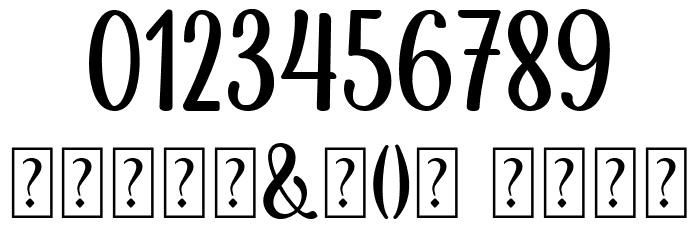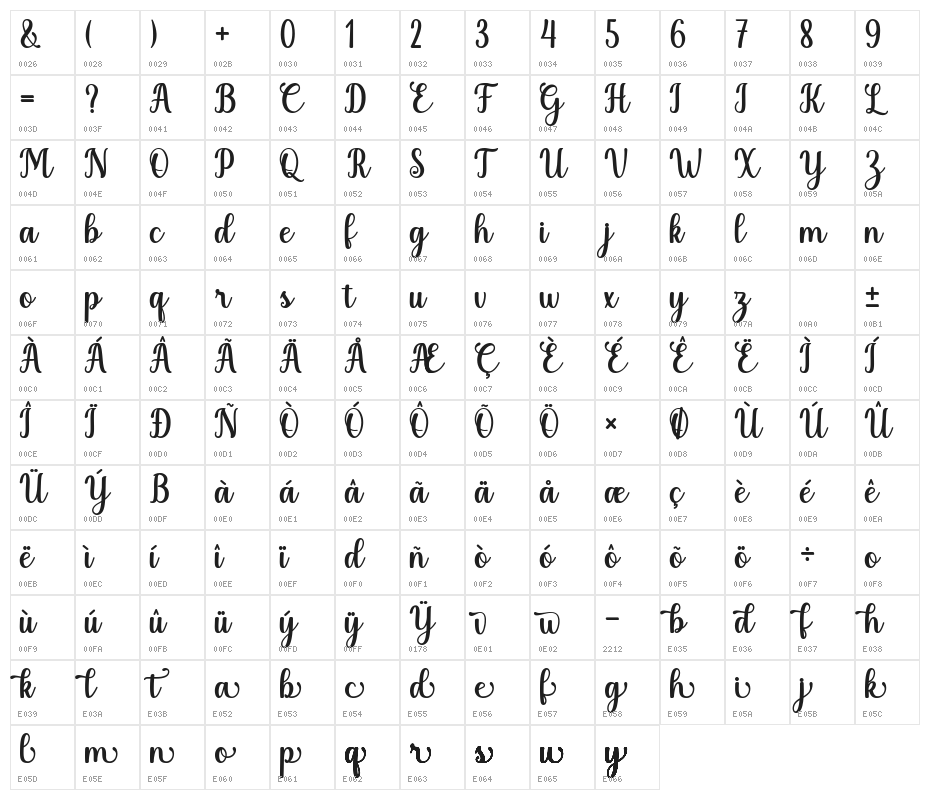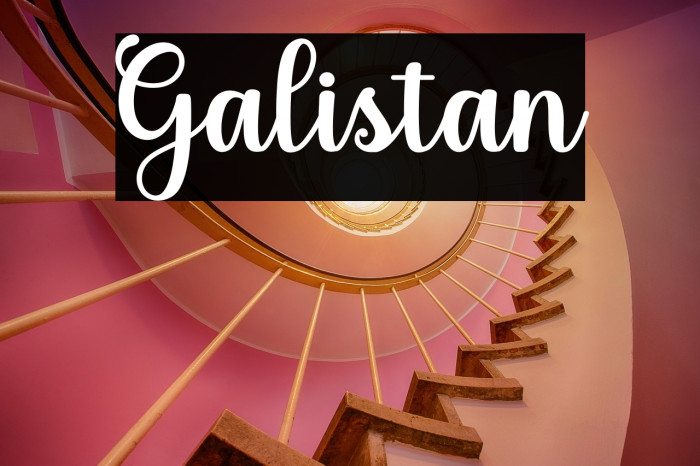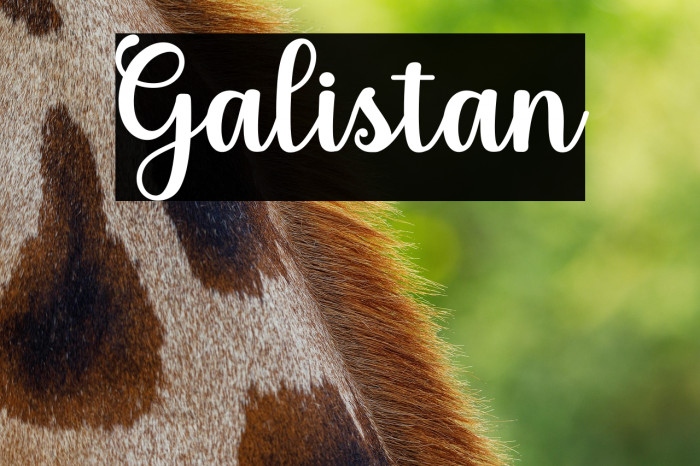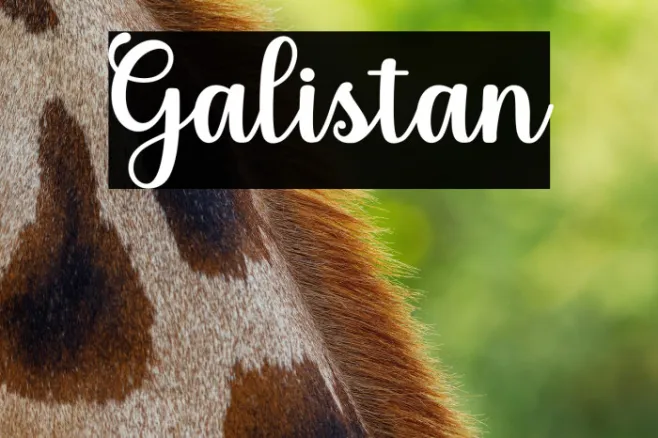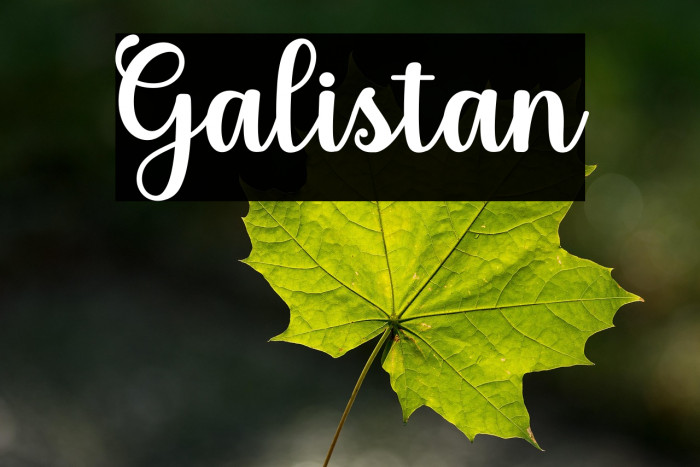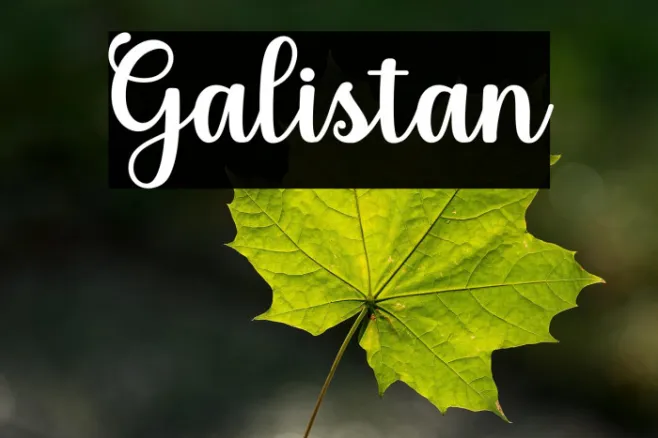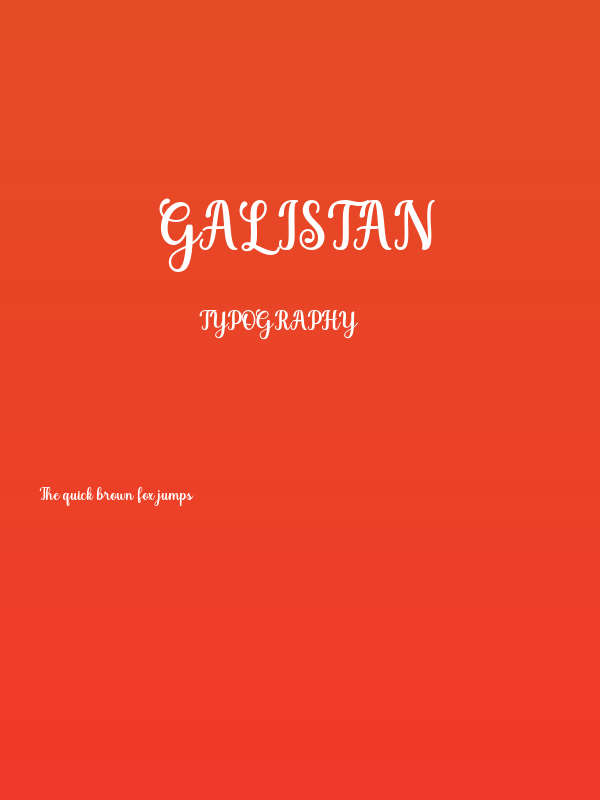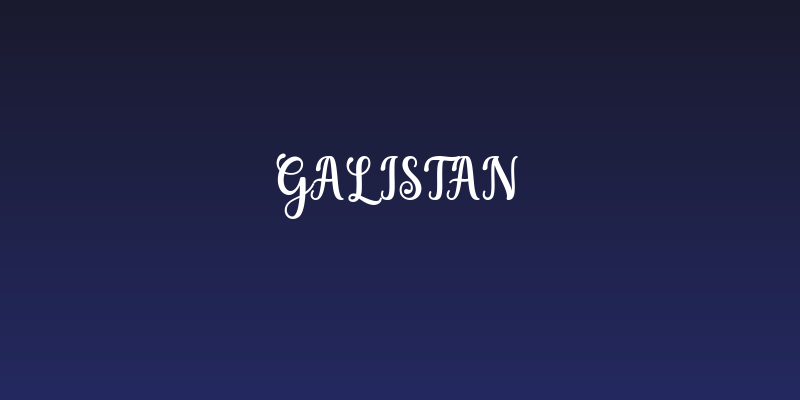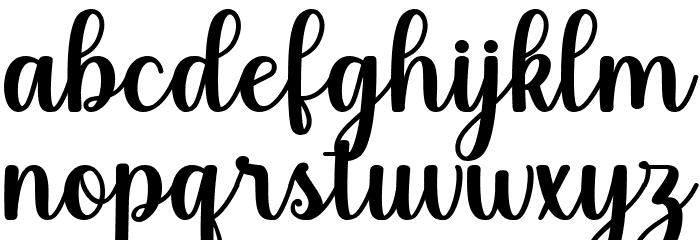
Galistan Font
Galistan Description
This font features a playful and elegant script style with a modern twist. The uppercase letters are characterized by their flowing, cursive forms, while the lowercase letters maintain a consistent, smooth connection between characters. The numerals are bold and slightly rounded, complementing the overall aesthetic. Special characters are designed with the same fluidity, adding a cohesive look to the font. The strokes vary in thickness, providing a medium contrast that enhances readability while maintaining a decorative appeal.
Use CaseLogos, Headlines, Invitations
Proposed ProjectsIdeal for wedding invitations, greeting cards, branding projects, and social media graphics.